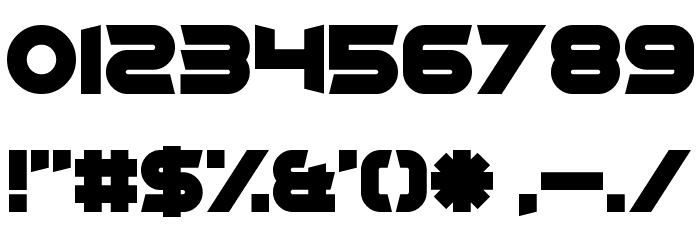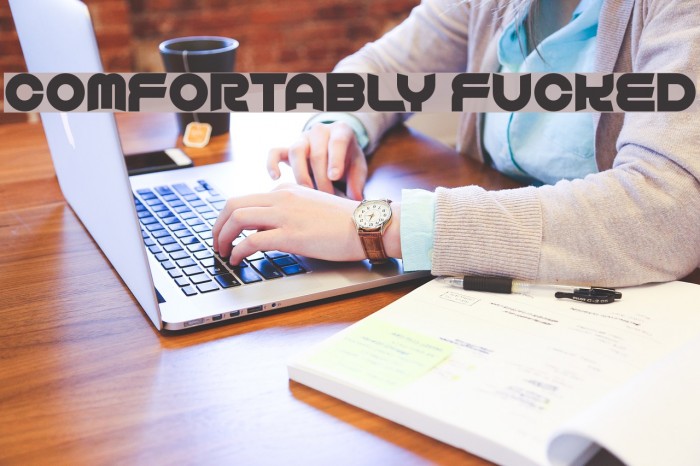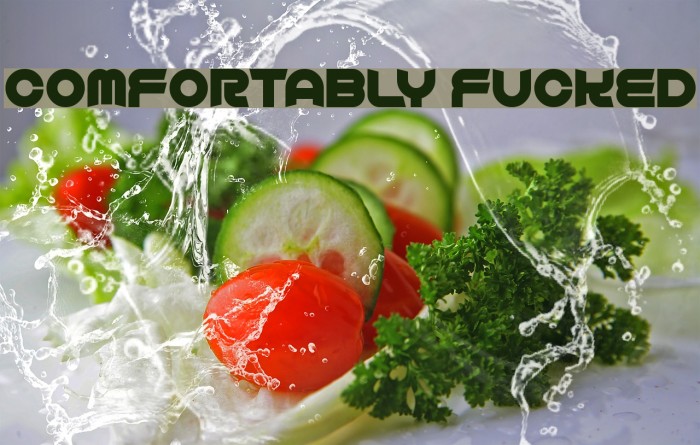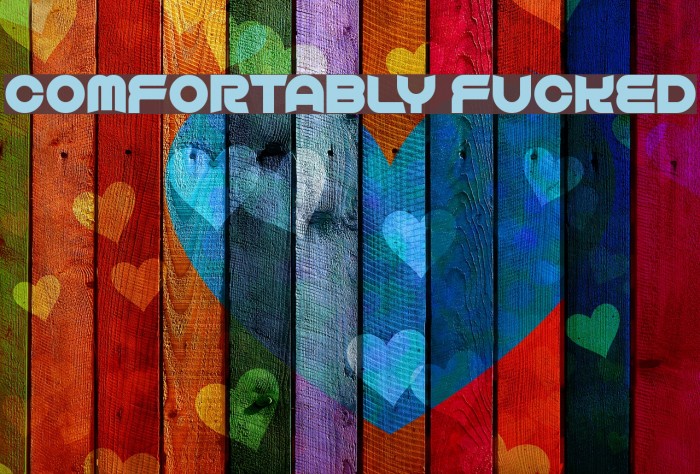
Comfortably Fucked Font
This font features a bold, geometric design with a futuristic and industrial feel. The characters are constructed with thick, block-like shapes, giving them a strong and commanding presence. The edges are sharp, and the overall structure is rigid, which contributes to its modern and edgy aesthetic. The uppercase and lowercase letters maintain a consistent style, ensuring uniformity across the text. Numbers and special characters are designed to match the boldness and geometric nature of the alphabet, making this font suitable for impactful and attention-grabbing designs.
- Proposed Projects: Ideal for use in technology branding, video game titles, posters, and any project requiring a modern, bold statement.